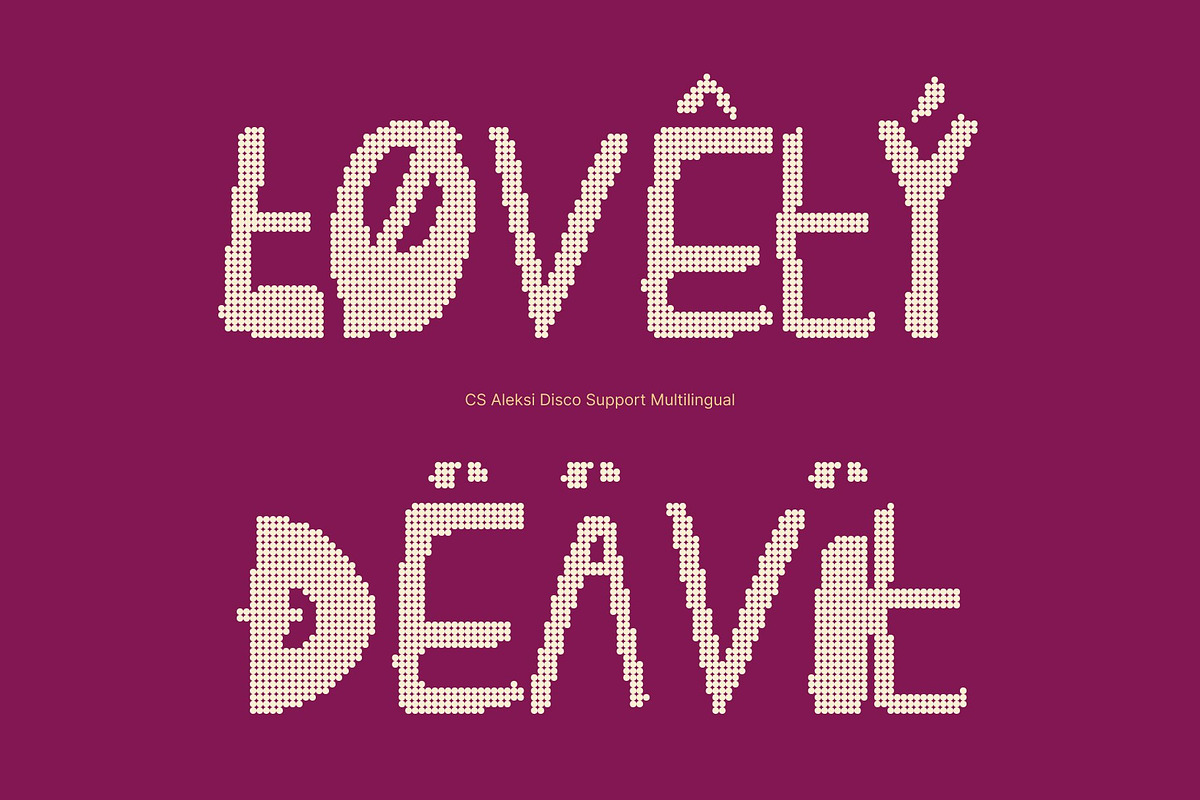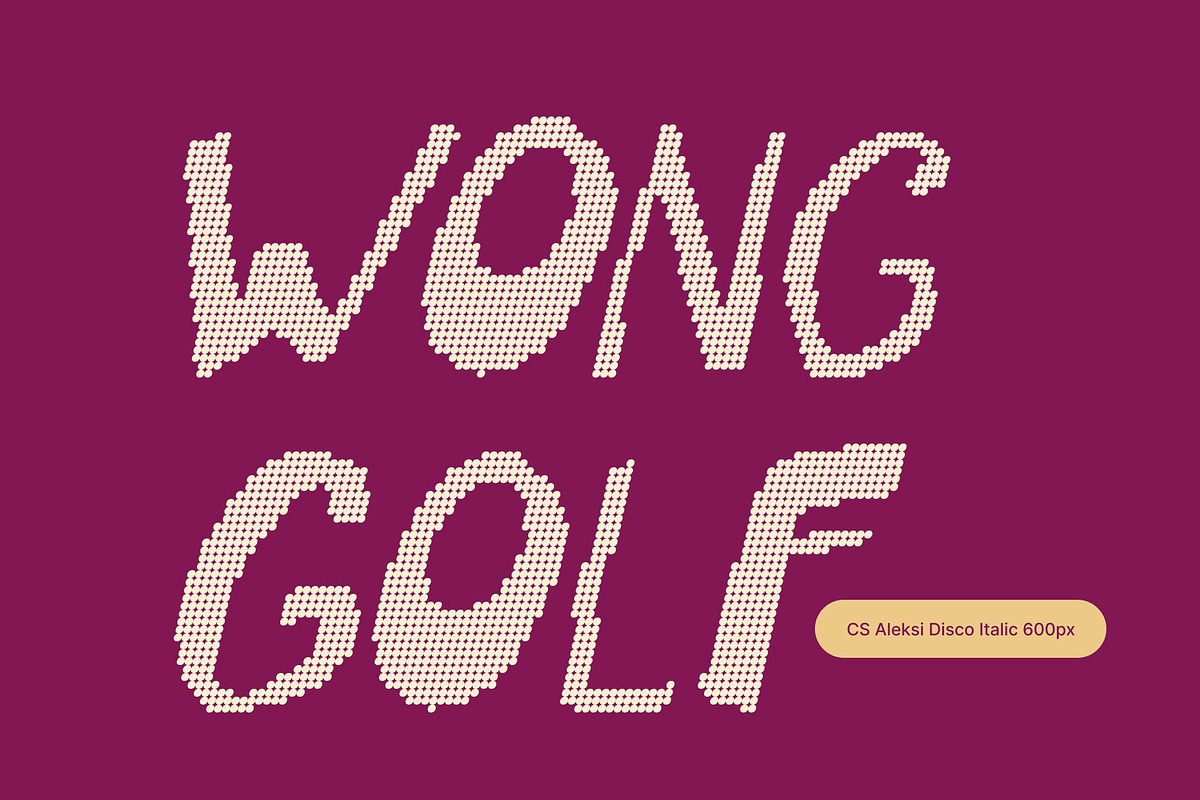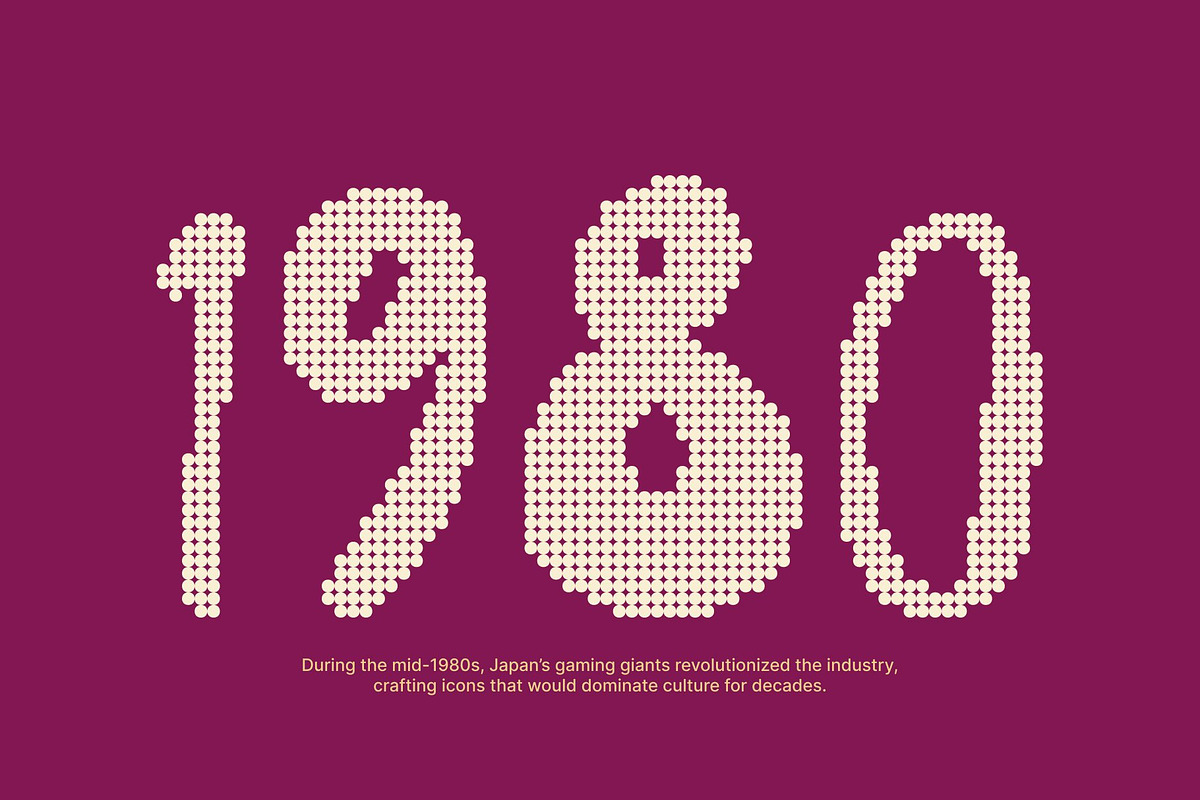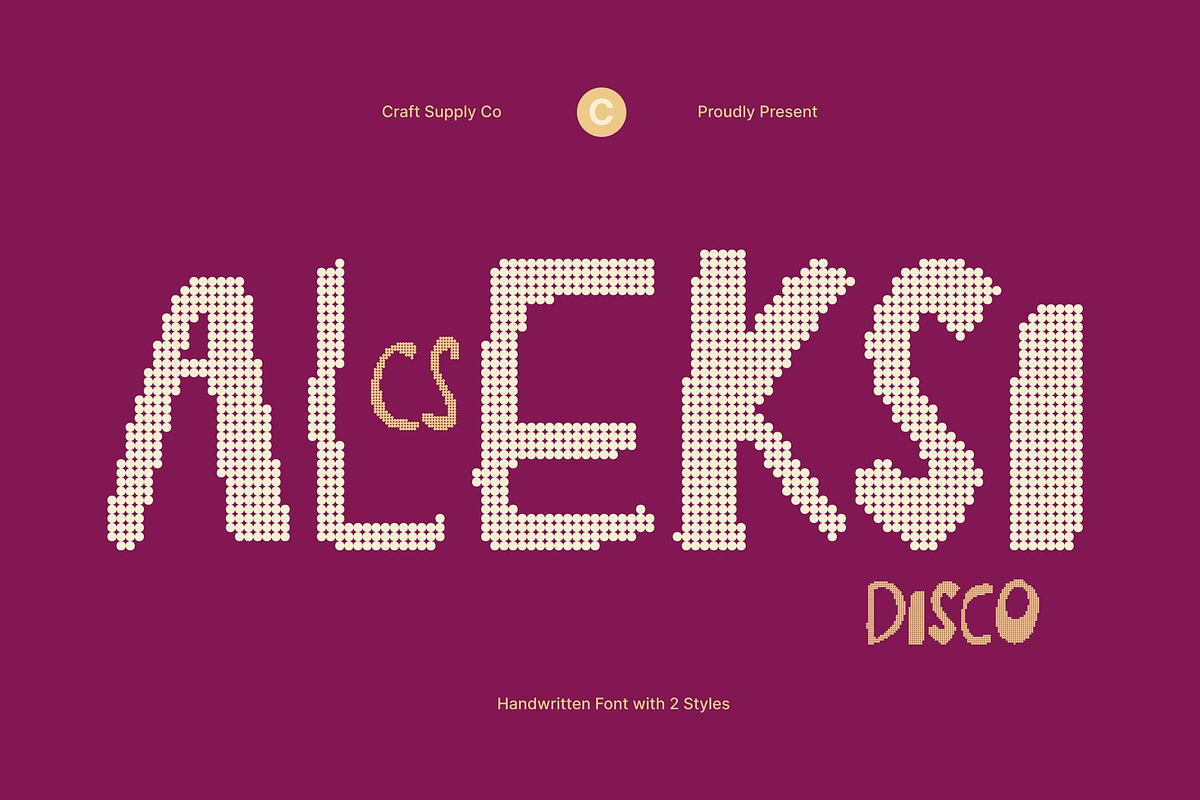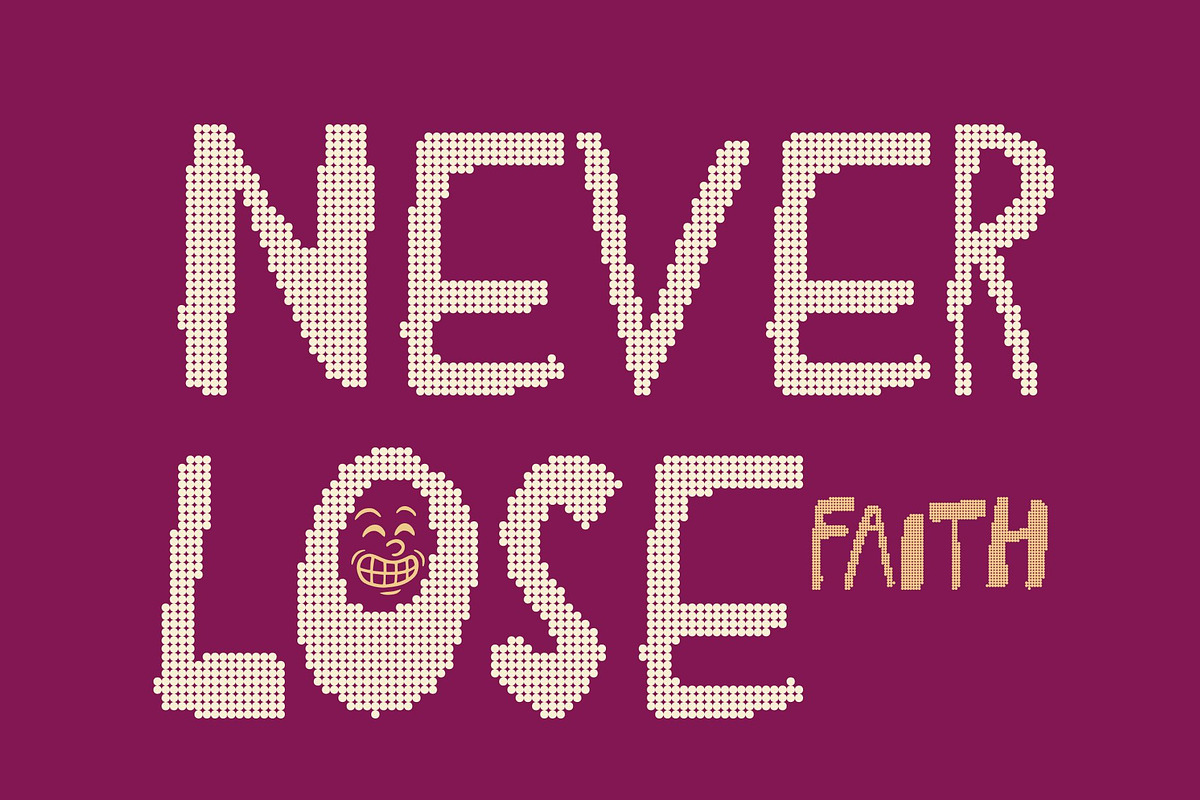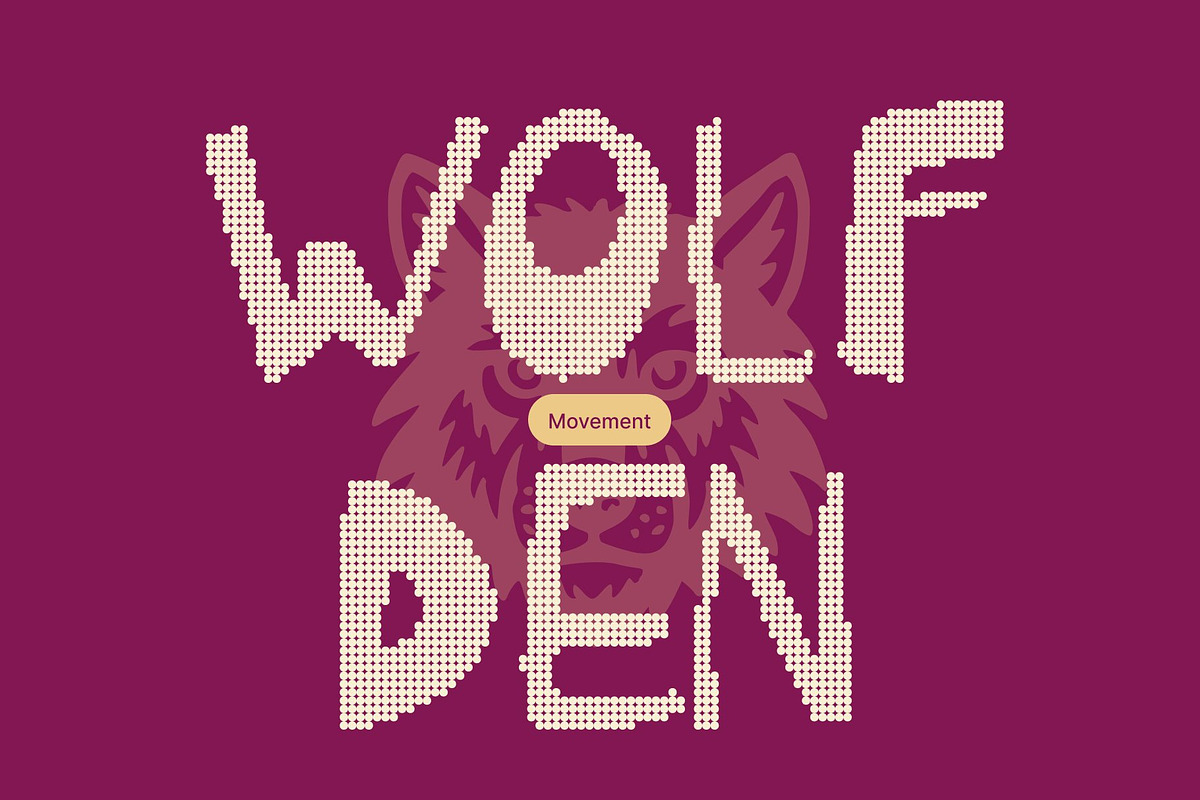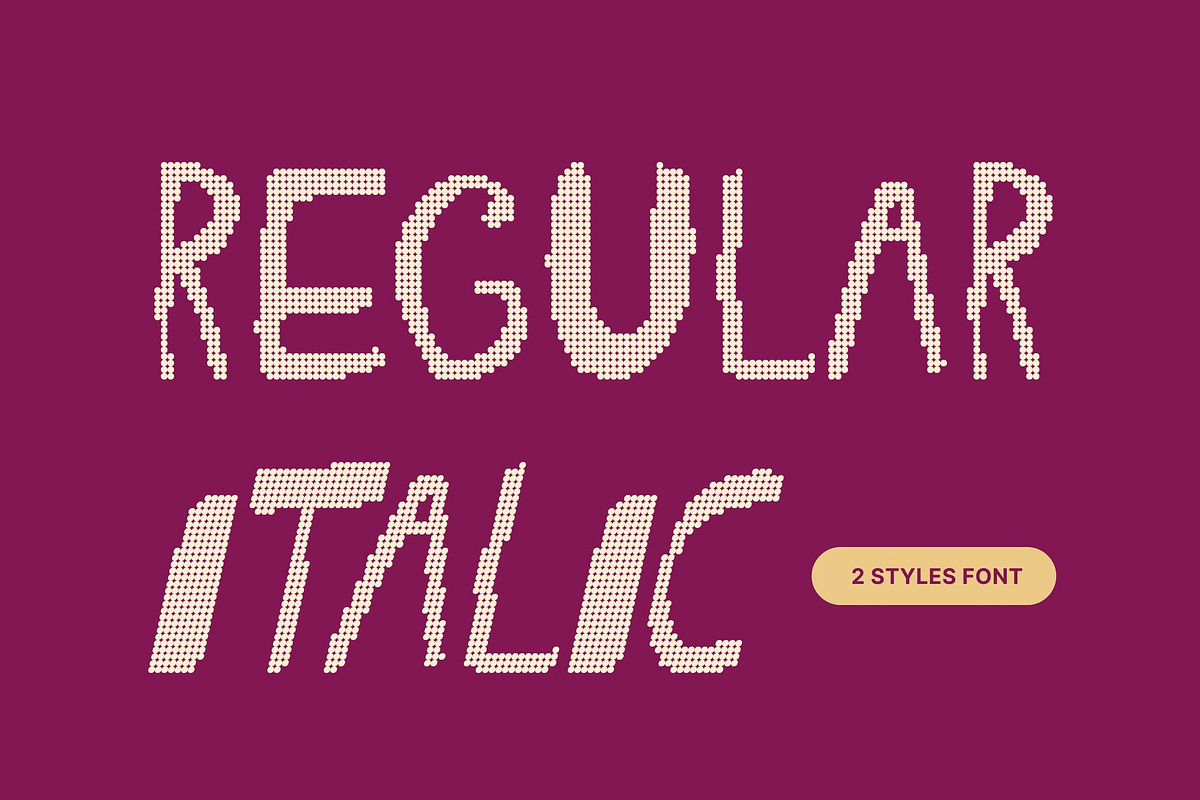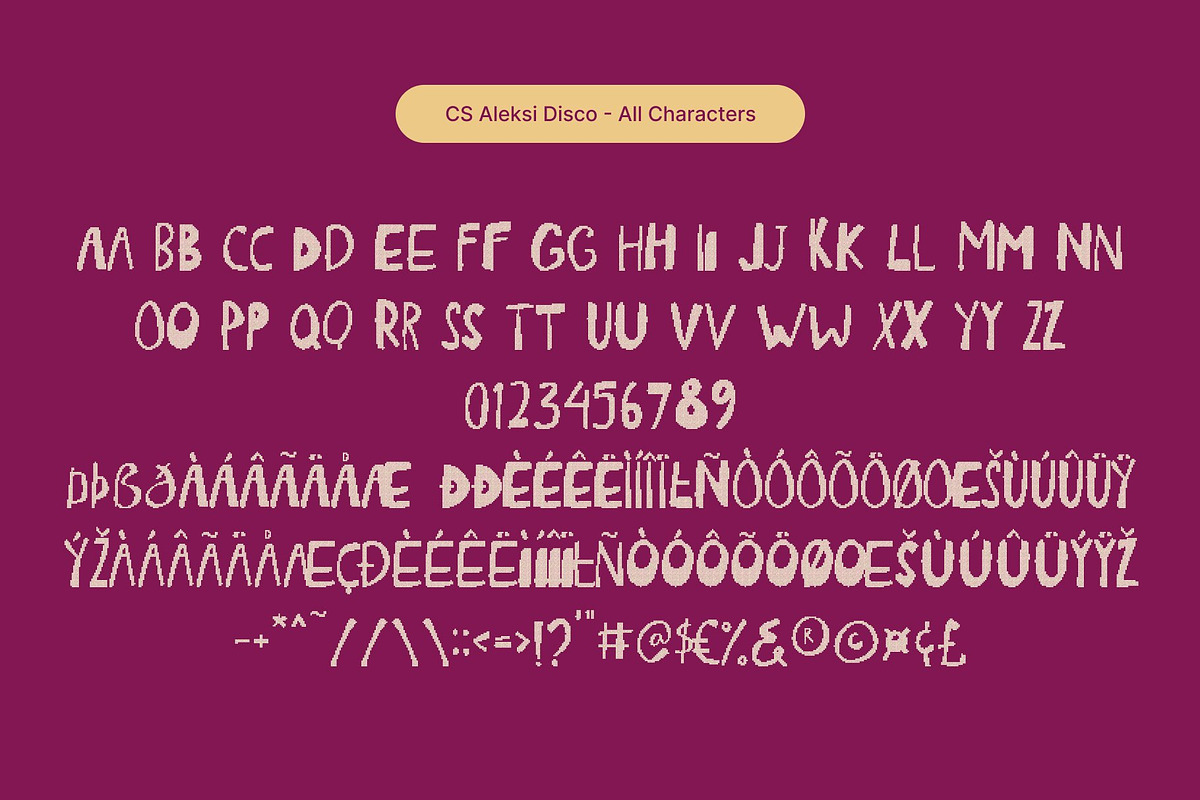
CS Aleksi Disco
CS Aleksi Disco – Playful Energy with a Glamorous Twist
Experimental Display Font with Disco Flair This is a bold and expressive display font that embraces imperfection and creativity. Its chunky strokes and quirky shapes give it a raw, youthful character that feels spontaneous and full of life. Perfect for designers who love fonts that break the rules with confidence and charm.
Bold Shapes for Playful Expression Each letter in this font carries unconventional proportions and friendly curves, resulting in a design that feels fun, artistic, and approachable. This makes it ideal for youth focused branding, greeting cards, posters, or playful digital designs that need an extra punch of personality.
Disco Look for Vibrant Glamour The disco inspired finish enhances its energetic spirit, adding a sparkly, glamorous shine that brings text to life. This shimmering effect transforms its quirky style into something modern, lively, and eye catching, perfect for party themes, creative promotions, and digital projects.
Perfect for Modern and Creative Design This font combines bold experimentation with sparkling sophistication, making it a versatile choice for modern branding, social media, and expressive visual identities.